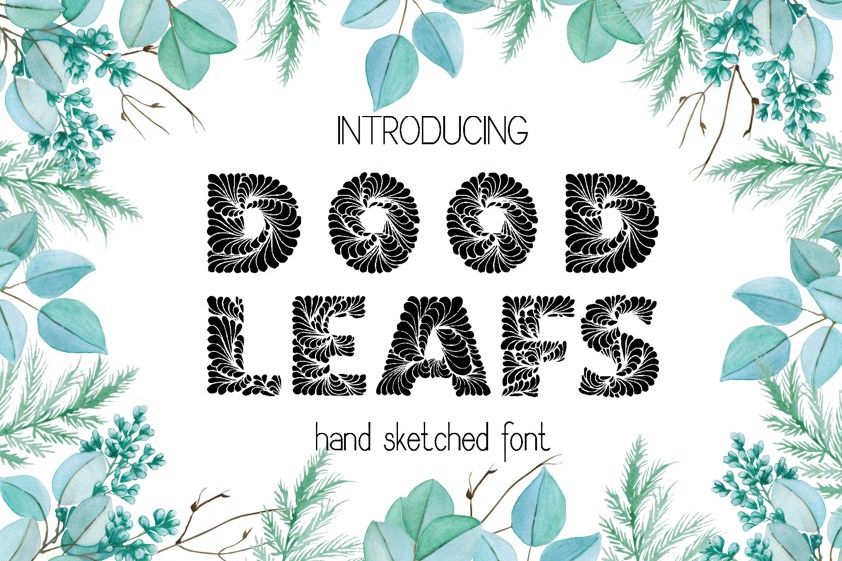
Doodleaf hand drawn decorative font
Introducing DoodLeafs font.
DoodLeafs is a hand drawn typeface. There are two different version (see pictures), as you type uppercase and lower cases, and use key 0-9 for bonus characters.
This font is great for titling, signage, poster, flyers or t-shirts design, headlines, coloring pages and more!